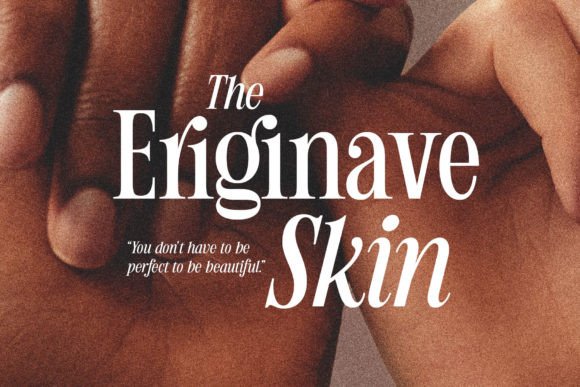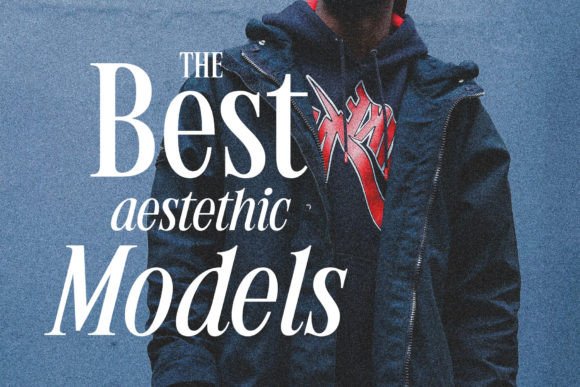
Humble Nostalgia Font
Experience the classic feel with Humble Nostalgia! A classy and elegant serif font that will transport you to the 80s era. Specially crafted with a modern touch, designed with tight kerning and spacing to achieve a more aesthetic appearance. A perfectly versatile font pair suitable for fashion, cosmetics, lifestyle, posters, branding, logos, logotypes, weddings, invitations, quotes, and much more.